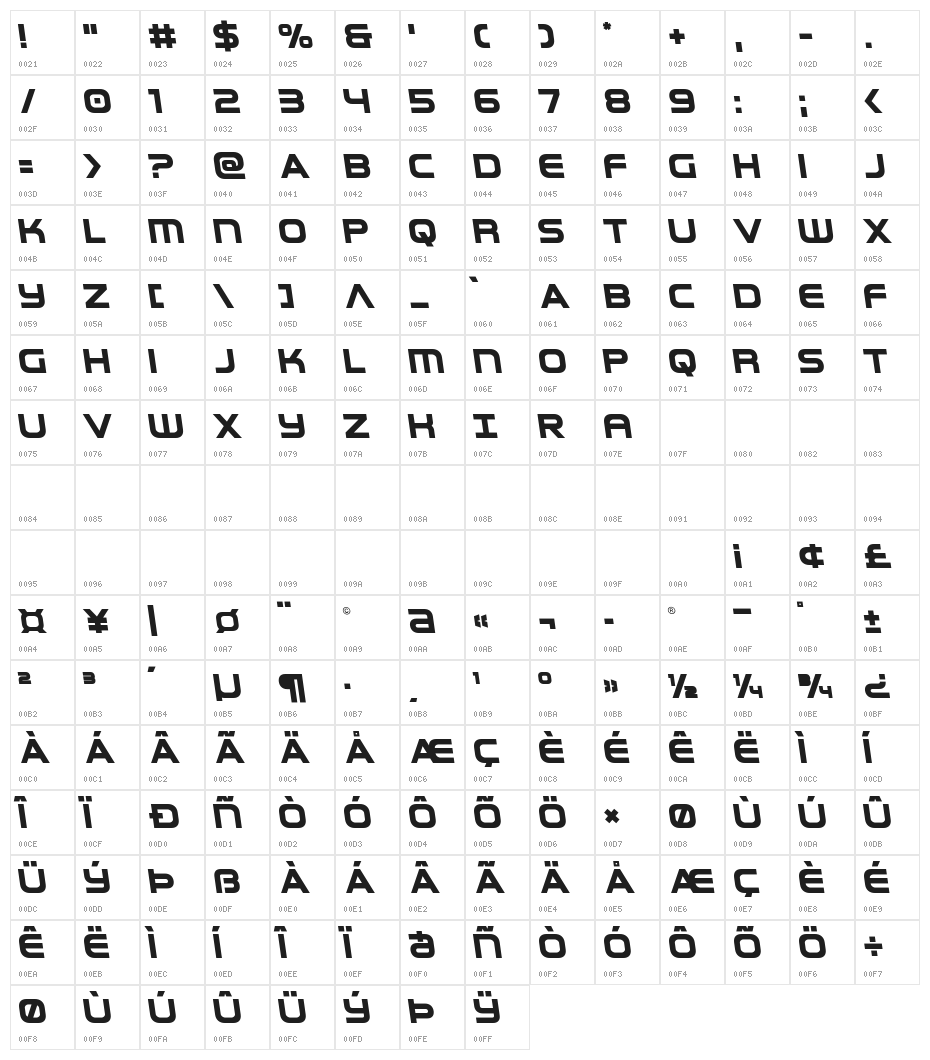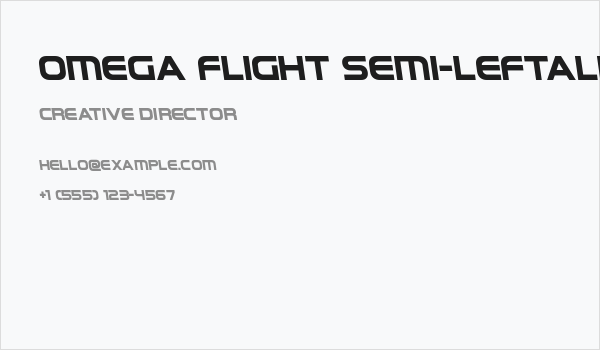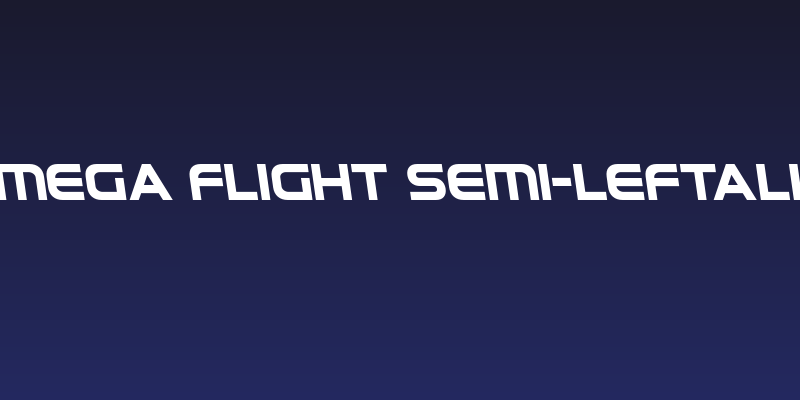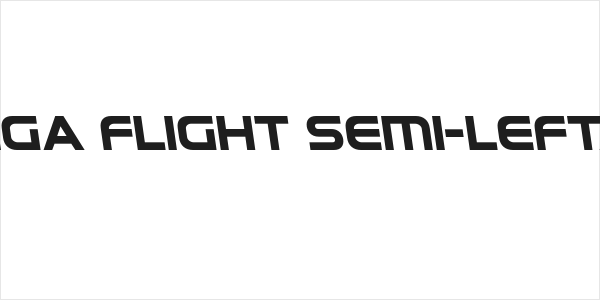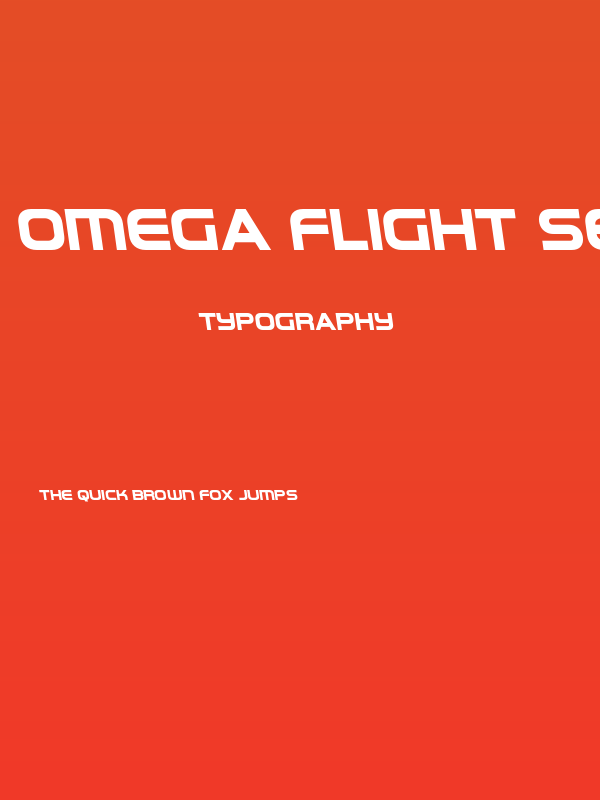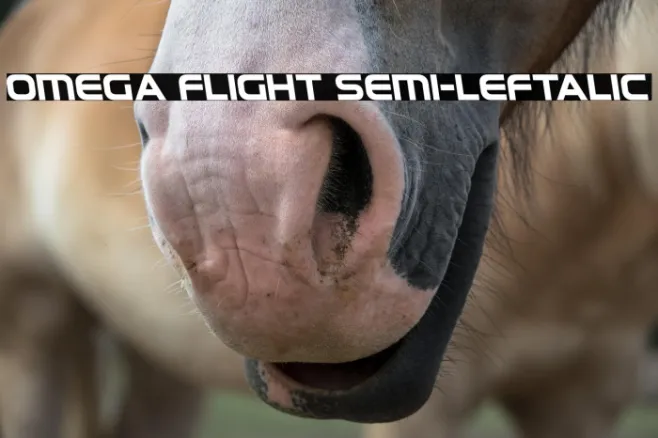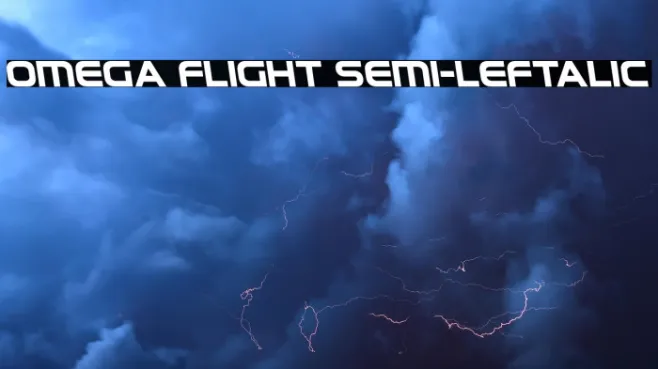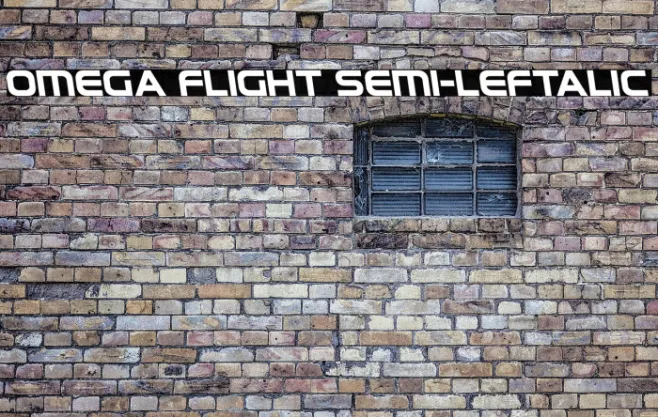
Omega Flight Semi-Leftalic Font
Omega Flight Semi-Leftalic Description
This font features a modern, futuristic design with a semi-italic slant, giving it a dynamic and forward-moving appearance. The characters are bold and slightly condensed, with a consistent stroke width that provides a strong visual impact. The angular cuts and geometric shapes contribute to its sleek and contemporary style. The uppercase and lowercase letters maintain a uniform height, enhancing readability while preserving a unique aesthetic. The numerals and special characters are designed to match the overall theme, ensuring a cohesive look across all text elements.
| Proposed Projects | Ideal for technology branding, sci-fi movie posters, video game titles, and modern advertising campaigns. |